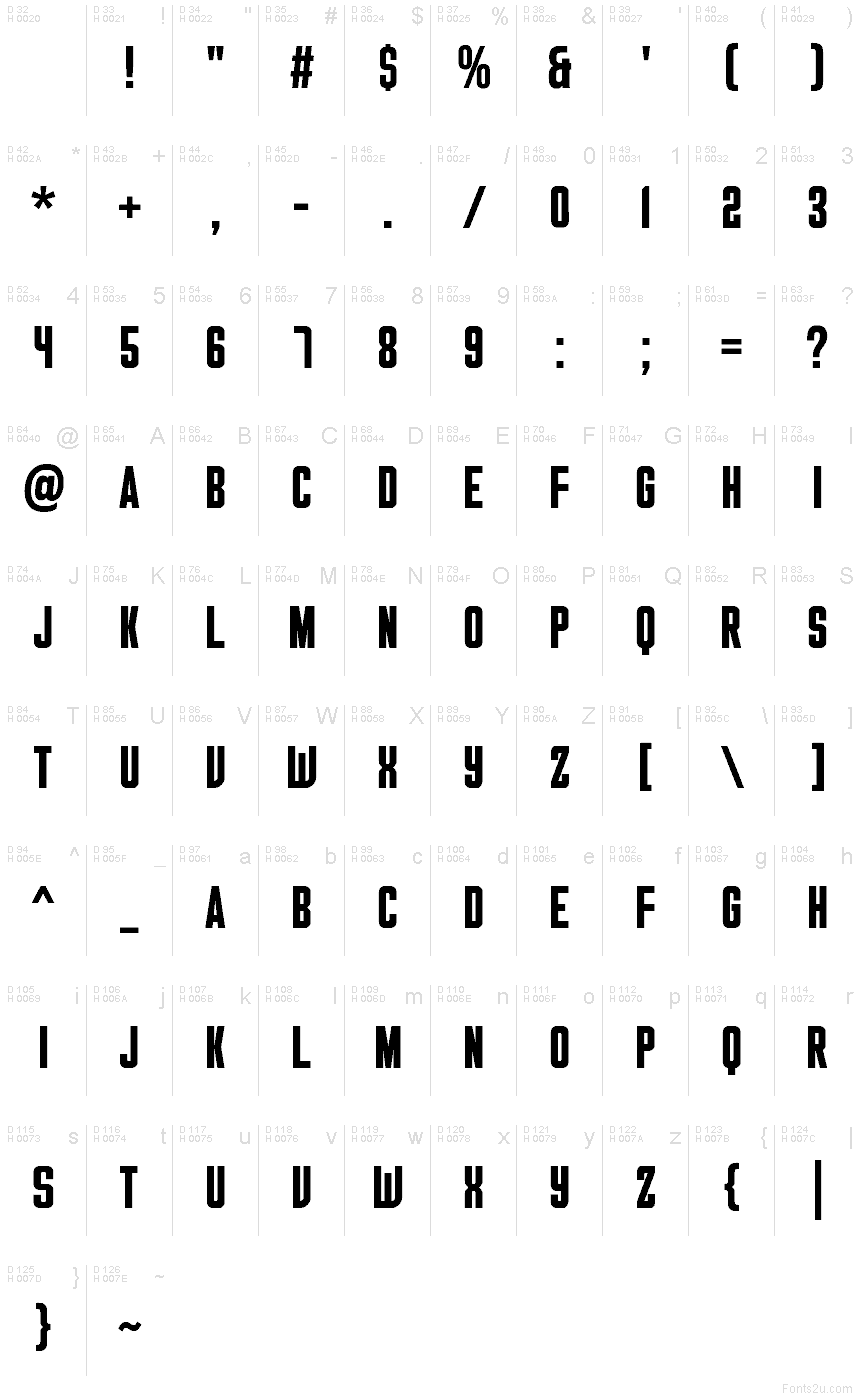
Tokyo
Tokyo font by Graphicxell is a free condensed sans serif font. Built like a steel beam, it packs thick, uniform strokes and tight proportions that slam straight to the point. The shapes feel machined—clean edges, dense rhythm, and just enough curve to keep it readable while staying unapologetically blocky.
Using Tokyo, headlines hit hard and stay legible from across the street—great for posters, event titles, streetwear branding, gaming overlays, packaging, album art, and bold website hero text. This free font thrives at large sizes and short phrases. Pair it with a light, open grotesk for body copy, or track it out slightly for an airier, billboard-ready presence.